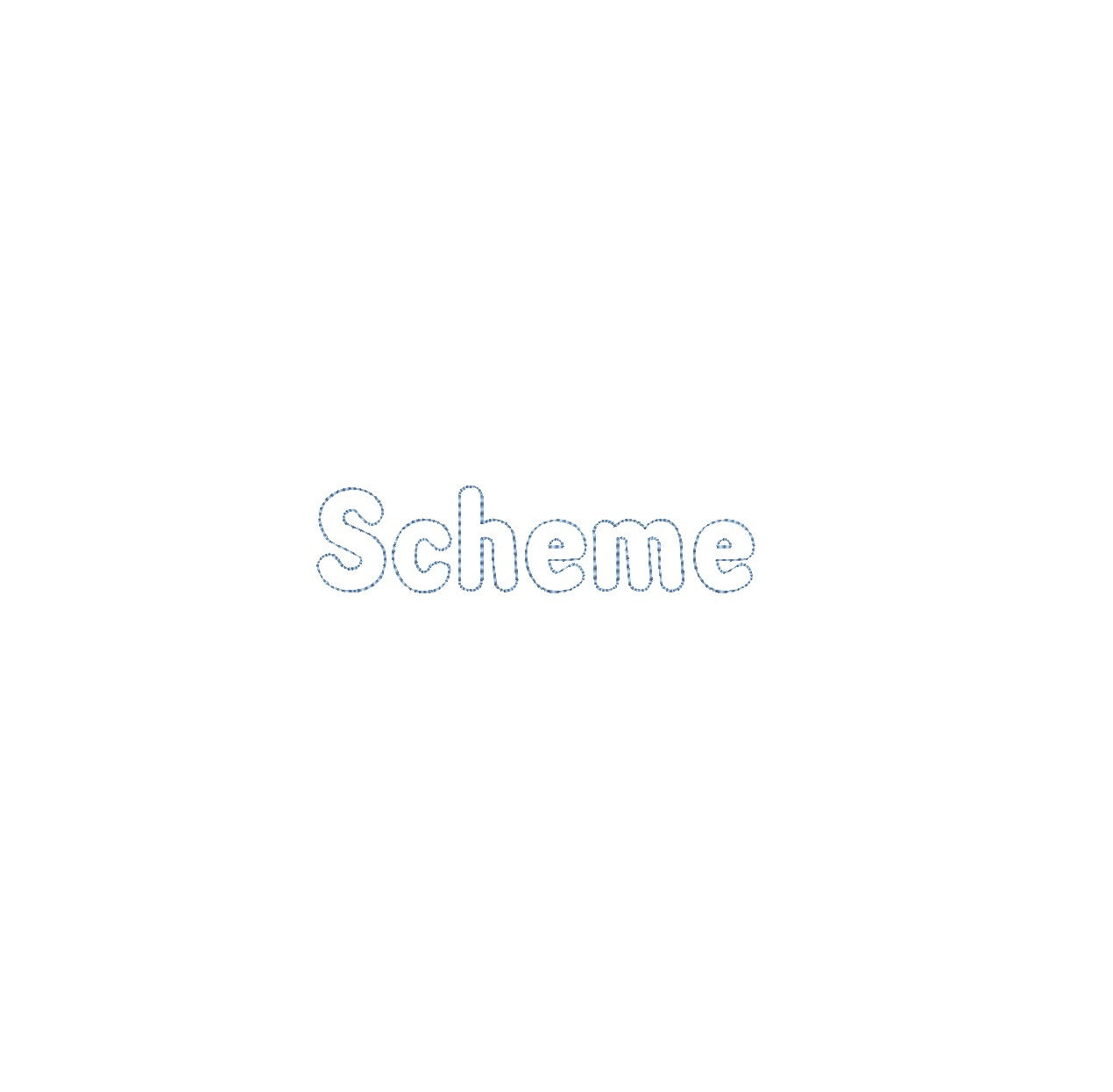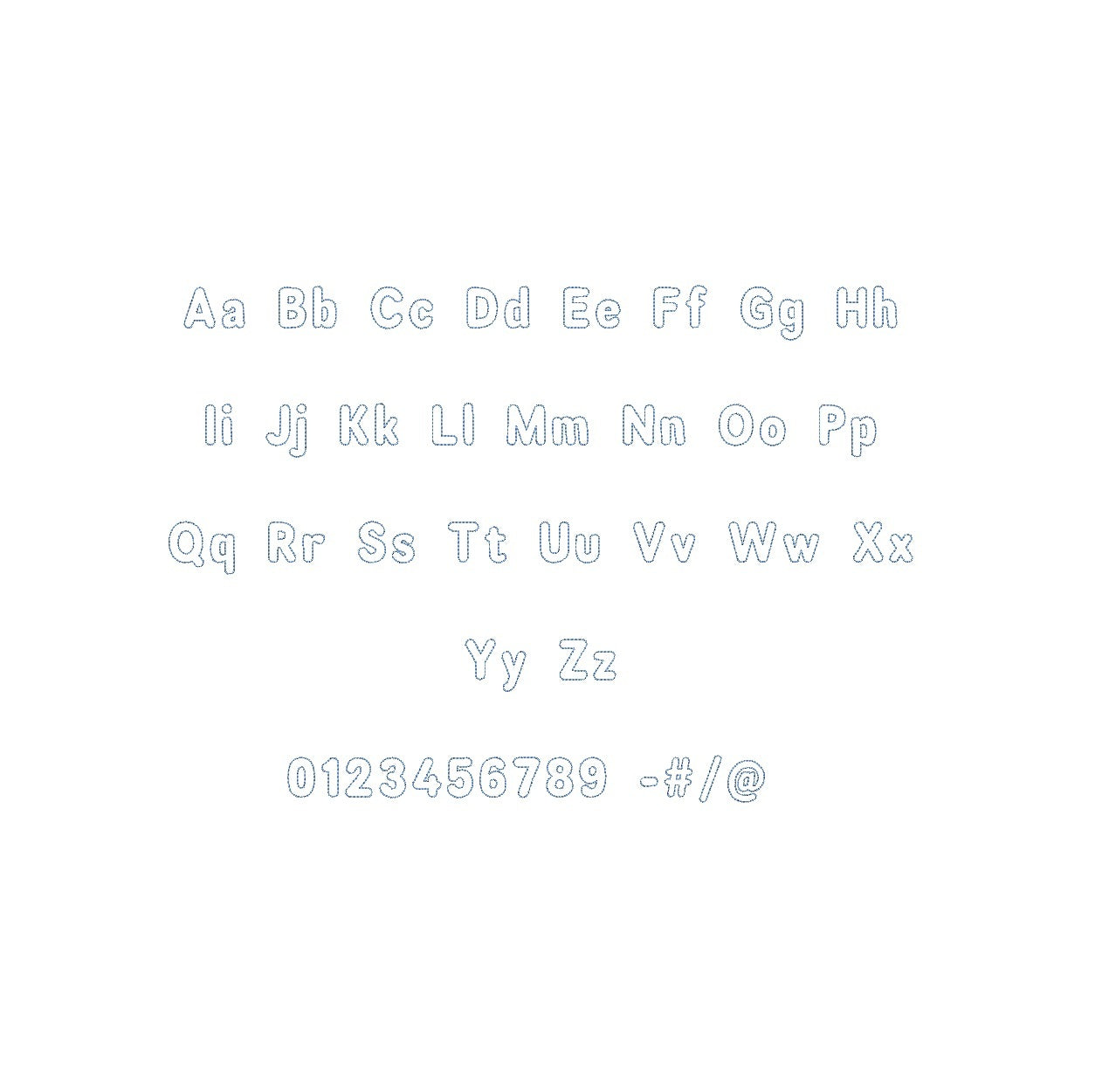
Elevate your embroidery projects with the Scheme Bean Outline ESA font, designed for Wilcom Studio e4.5.6 and Hatch 3 versions and up. This font seamlessly combines sleek modernity and precision, infusing your designs with a distinctive aesthetic ideal for contemporary monograms and embellishments. Experience seamless compatibility for outstanding results and unleash a new level of stitching finesse. Transform your creations into embroidery masterpieces that radiate sophistication and creativity. Elevate your projects with the Scheme Bean Outline ESA font and make your embroidery truly captivating and unforgettable.